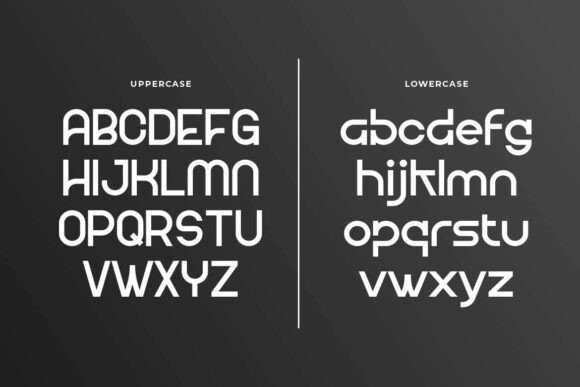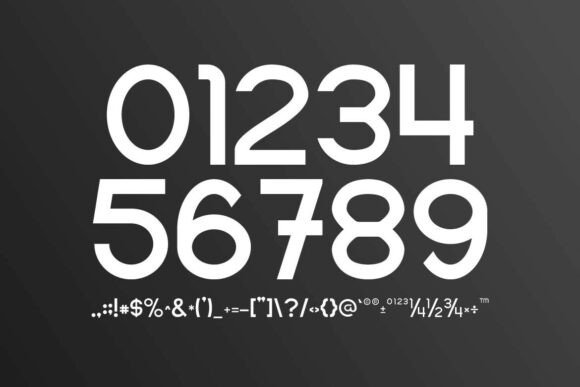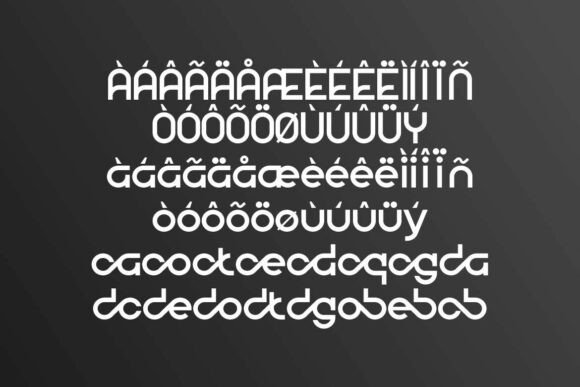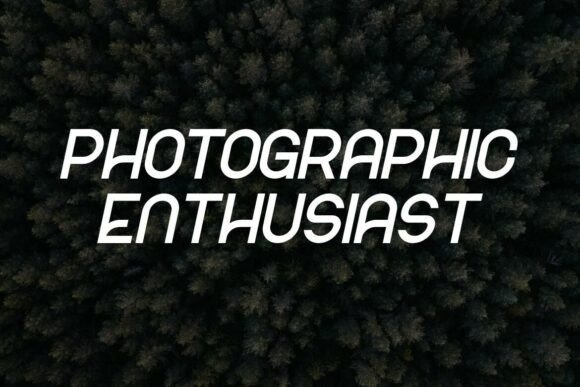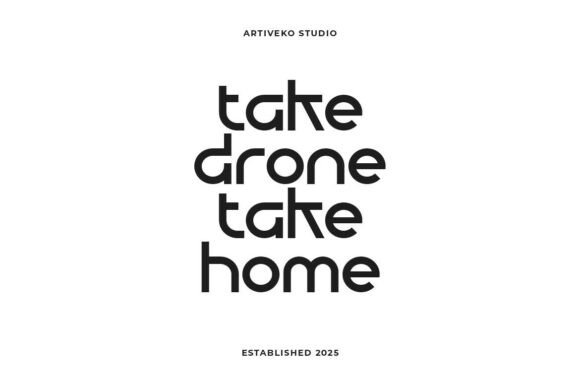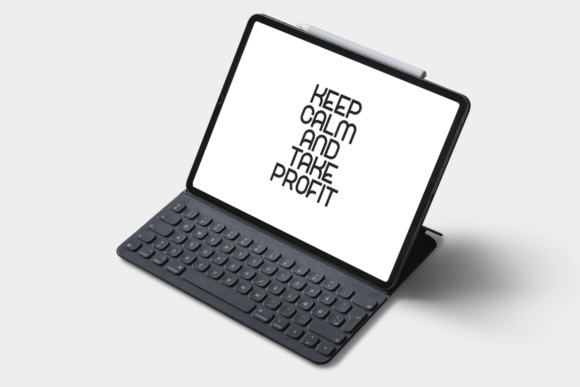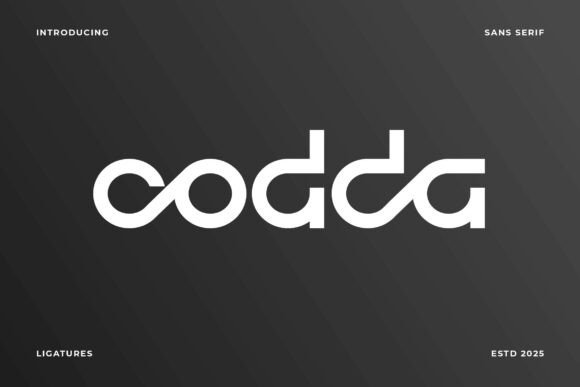
Codda Font: The Ultimate Sans Serif for Bold and Memorable Logos
In the world of typography, a well-designed font can make all the difference in creating a lasting impression. For designers and crafters looking for a clean and versatile sans serif font, Codda is an excellent choice. Specifically designed to create bold and memorable logos, Codda is perfect for crafting professional wordmarks, branding systems, packaging, website headers, and social media graphics that demand clarity and sophistication.
What Makes Codda Font Stand Out?
Codda’s geometric structure, sharp lines, and contemporary minimalism set it apart from other fonts. Its clean and simple design makes it an ideal choice for designers who want to create a professional and modern look. The font’s versatility allows it to be used in various contexts, from logos and branding to digital and print materials.
Key Features of Codda Font
- Geometric Structure: Codda’s geometric structure provides a solid foundation for creating bold and memorable logos. Its clean lines and shapes make it easy to read and recognize.
- Sharp Lines: The font’s sharp lines add a touch of sophistication and elegance, making it perfect for professional branding and marketing materials.
- Contemporary Minimalism: Codda’s minimalist design ensures that the font remains clean and uncluttered, allowing designers to create a modern and sleek look.
- Versatility: Codda is a versatile font that can be used in various contexts, including logos, branding, packaging, website headers, and social media graphics.
Use Cases for Codda Font
Codda font is perfect for a wide range of design projects, including:
- Logo Design: Create bold and memorable logos that make a lasting impression.
- Branding Systems: Develop a consistent brand identity with Codda’s clean and professional design.
- Packaging: Use Codda to create eye-catching packaging designs that stand out on store shelves.
- Website Headers: Add a touch of sophistication to your website headers with Codda’s clean and modern design.
- Social Media Graphics: Create engaging social media graphics that demand clarity and sophistication.
Benefits of Using Codda Font
By using Codda font, designers and crafters can enjoy several benefits, including:
- Improved Readability: Codda’s clean design ensures that text is easy to read and understand.
- Enhanced Professionalism: The font’s professional design makes it perfect for creating a sophisticated and modern look.
- Increased Versatility: Codda’s versatility allows it to be used in various contexts, making it a valuable addition to any designer’s toolkit.
- Time-Saving: With Codda, designers can quickly create professional-looking designs without spending hours on typography.
In conclusion, Codda font is an excellent choice for designers and crafters looking for a clean and versatile sans serif font. Its geometric structure, sharp lines, and contemporary minimalism make it perfect for creating bold and memorable logos, professional wordmarks, branding systems, packaging, website headers, and social media graphics. With its improved readability, enhanced professionalism, increased versatility, and time-saving benefits, Codda is a valuable addition to any designer’s toolkit.